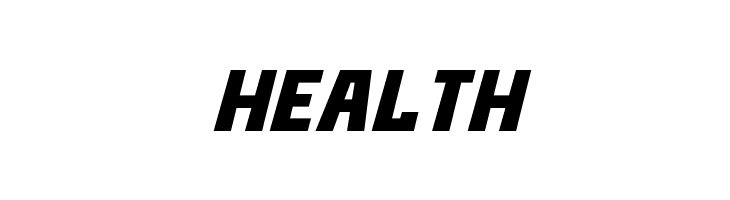
A bold, italicized font with sharp, angular characters and a dynamic style.
A futuristic, angular, hollow font with a slight italic slant.
A futuristic, angular font with hollow, outlined characters.
A bold, italicized font with a futuristic and angular design.
A bold, futuristic font with sharp angles and geometric shapes.
A bold, geometric font with a futuristic and mechanical aesthetic.
A futuristic, italic font with sharp angles and a mechanical style.
A bold, italicized font with a futuristic, mechanical style.
A bold, modern font with geometric structure and strong presence.
A bold, italicized font with a modern, angular design and tight spacing.
Recent favorites include Bidan Bold Italic, Rapier Zero Hollow Italic, Rapier Zero Hollow, Rapier Zero Italic and Rapier Zero. They balance clarity and personality, working well for tech brands, editorial layouts, and social visuals.